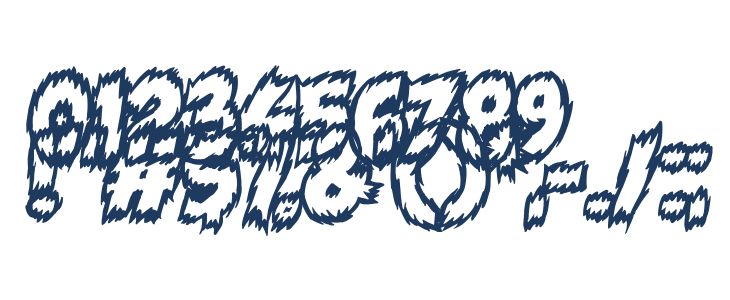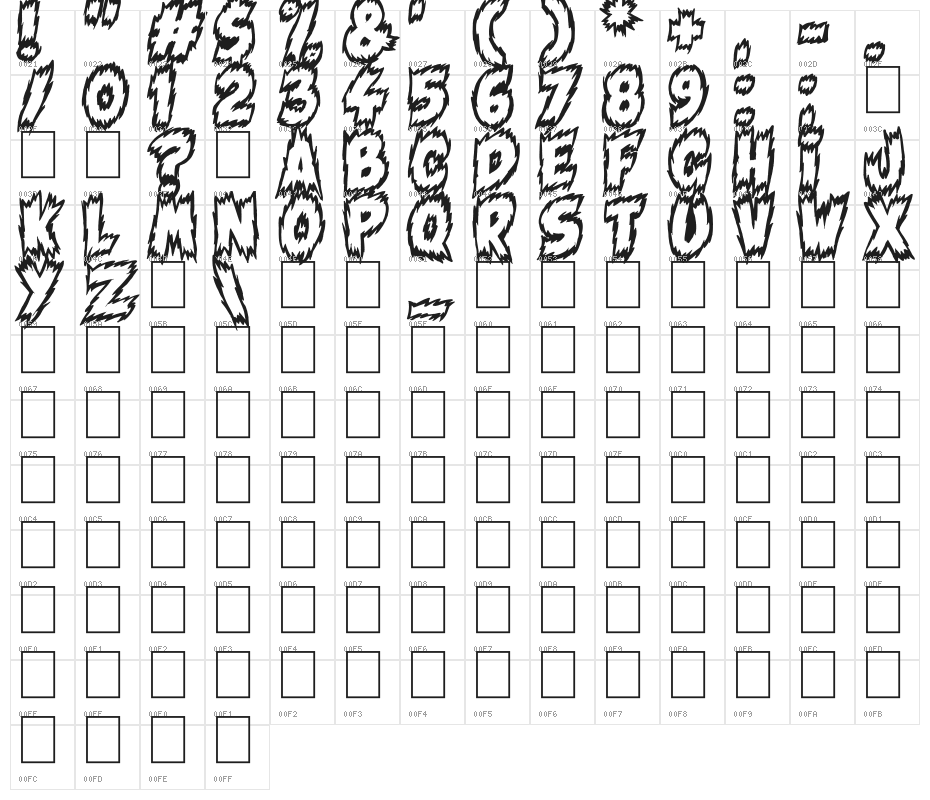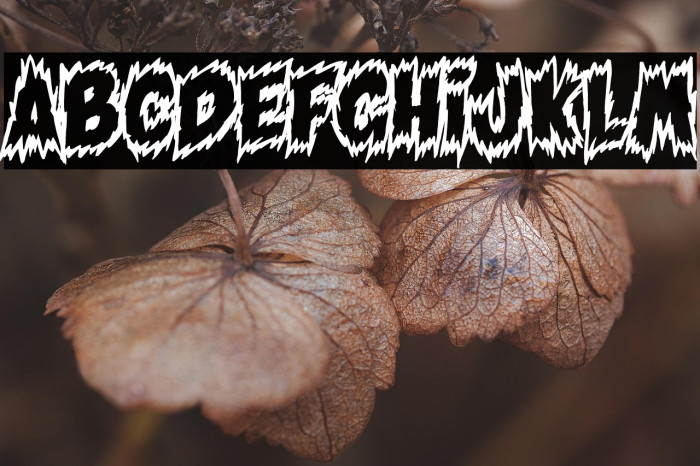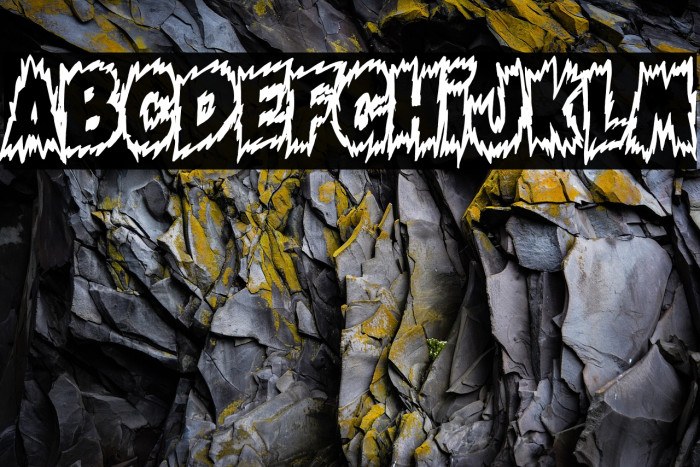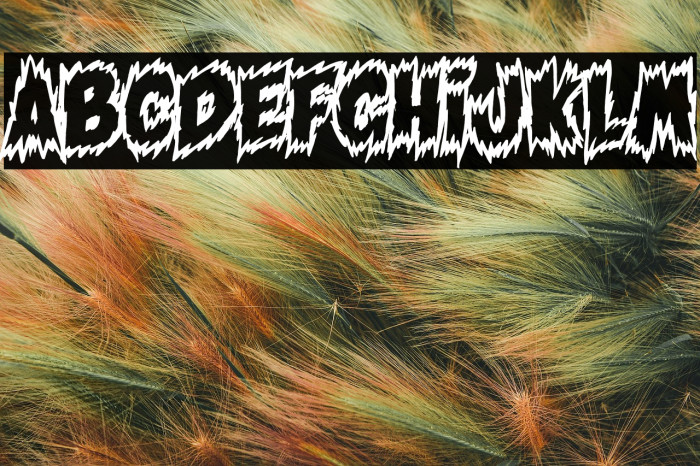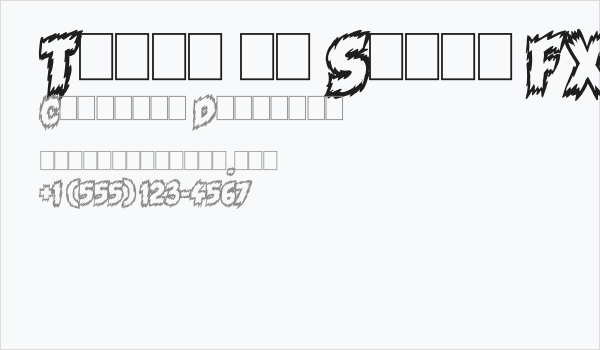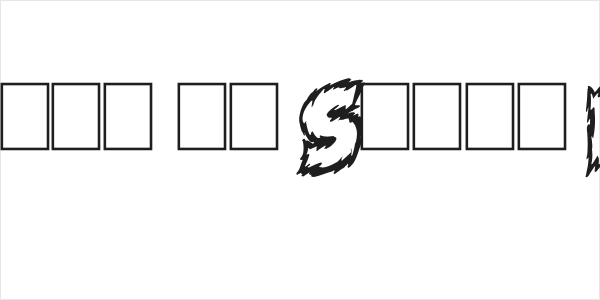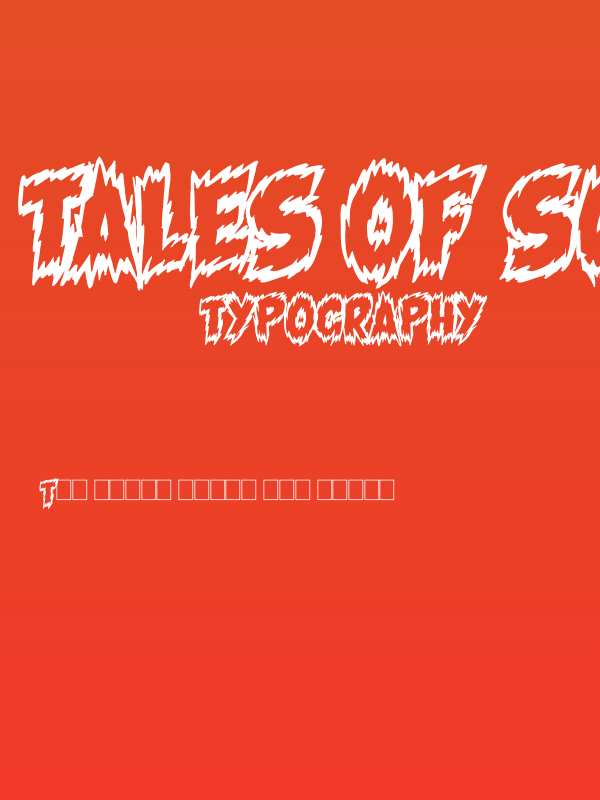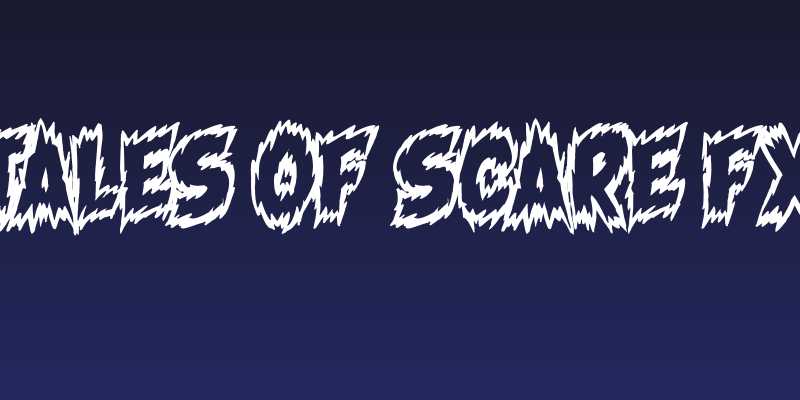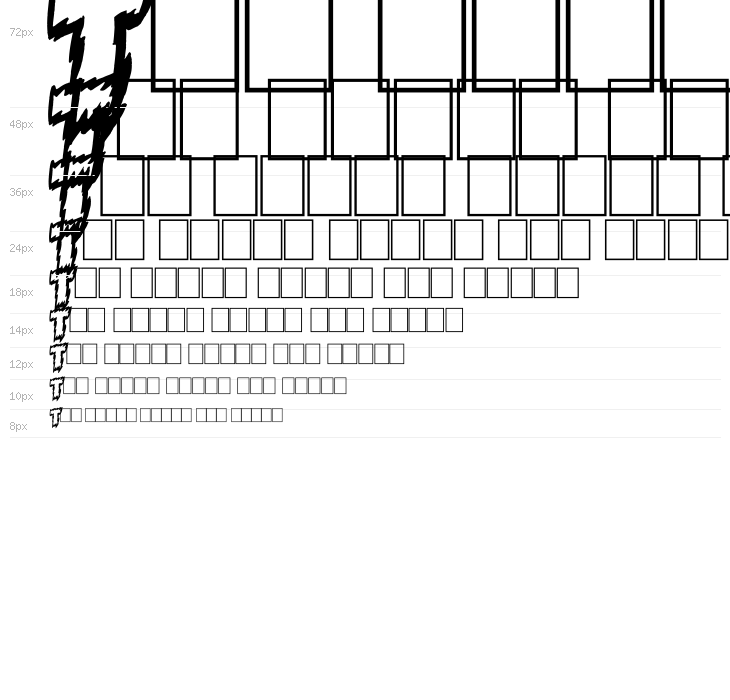
Tales of Scare FX Font
Tales of Scare FX Description
This font features a bold, jagged design that evokes a sense of horror and excitement. The letters are styled with sharp, irregular edges, resembling torn paper or jagged claws, making it perfect for Halloween-themed projects or anything requiring a spooky, dramatic flair. The uppercase letters are prominent and eye-catching, while the numbers and special characters maintain the same edgy style. The overall appearance is chaotic yet structured, providing a unique visual impact.